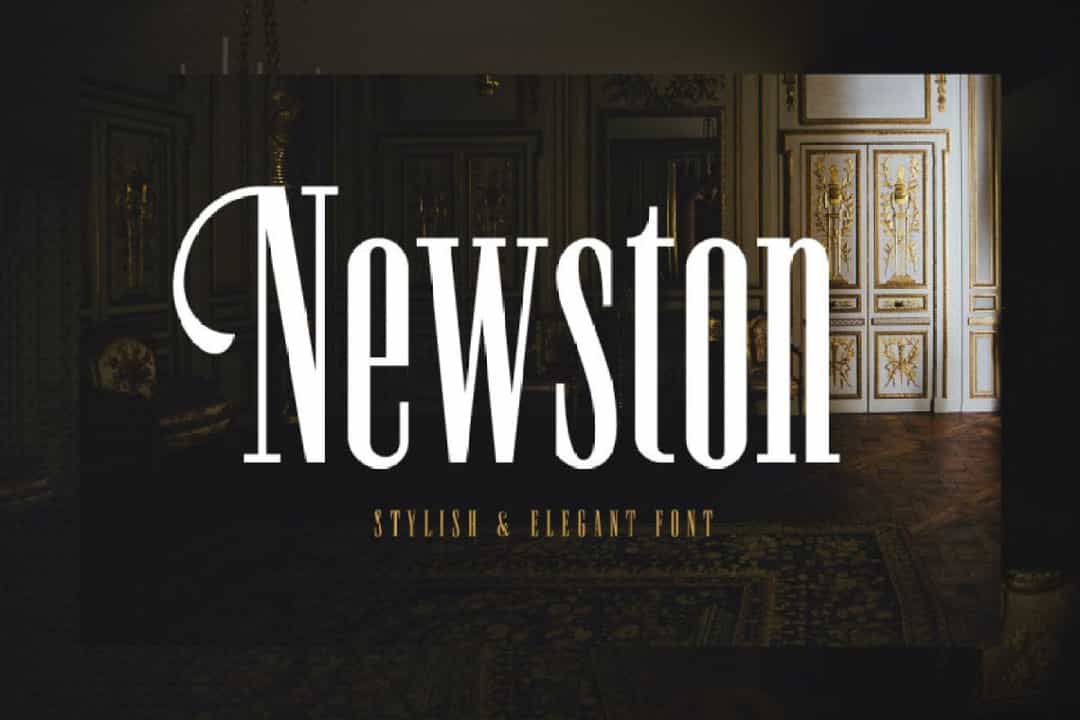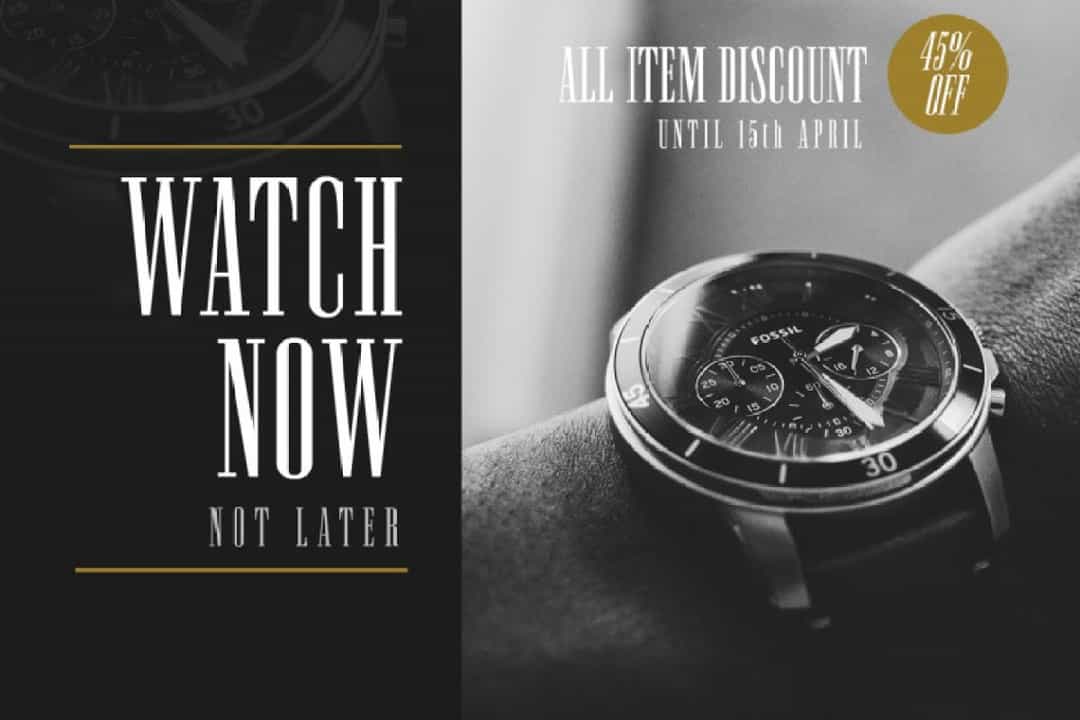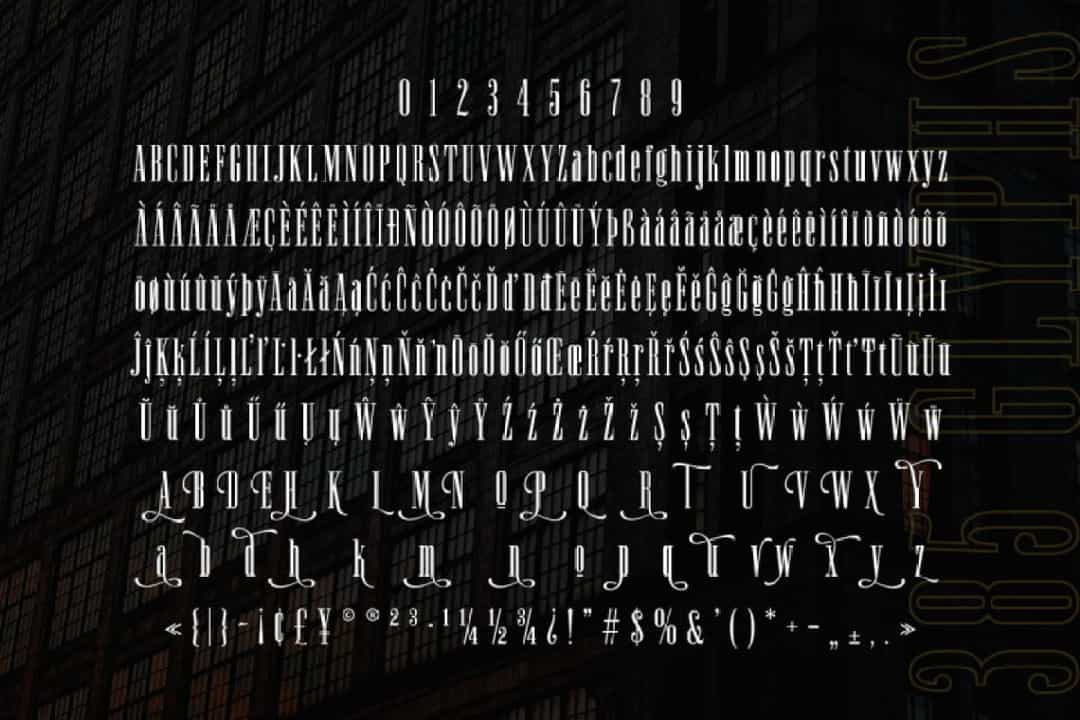
Newston Font is Here! Who could resist this minimalistic-stylish serif typeface designed by Paul Weyers? This one comes with a choice of four styles! Designed with moderate contrast between its lines for uses beyond just the headline generation; the letter spacing has also been slightly condensed to make it more suitable for usage in today’s or typography works.